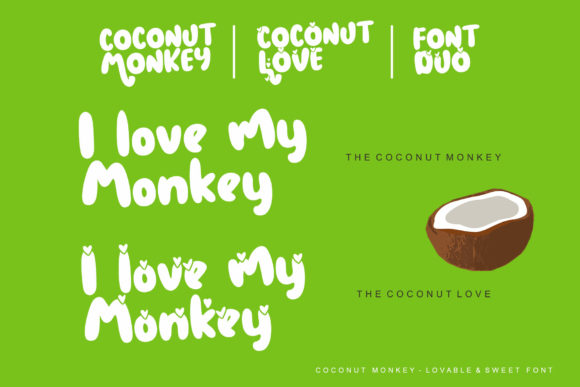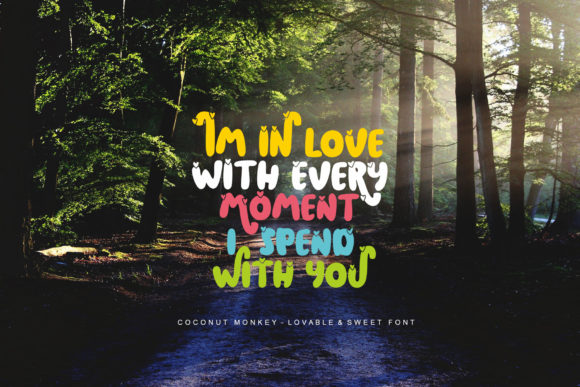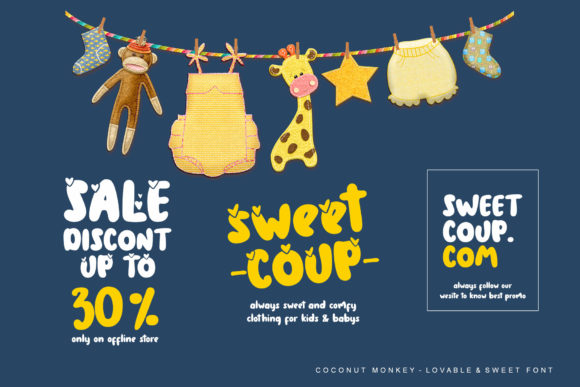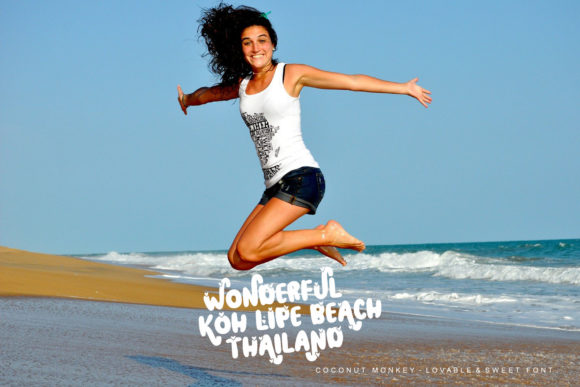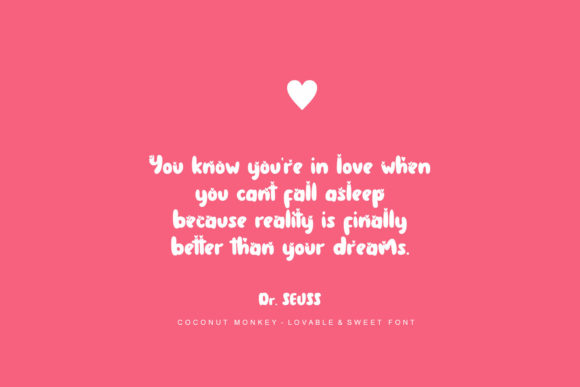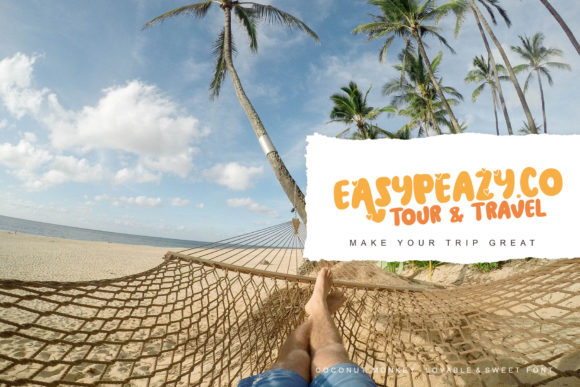
Coconut Monkey Font: The Sweet Display Font to Bring Your Creative Ideas to Life
Are you a designer, crafter, or DIY enthusiast looking for a unique and eye-catching font to add a touch of personality to your creative projects? Look no further than the Coconut Monkey Font! This sweet display font is sure to make your designs come alive with its colorful and bold style.
What is Coconut Monkey Font?
Coconut Monkey Font is a display font designed to add a playful and fun touch to your creative projects. Its unique and quirky style makes it perfect for a variety of designs, from posters and flyers to social media graphics and crafts.
Key Features of Coconut Monkey Font
- Colorful and Bold: Coconut Monkey Font is a vibrant and attention-grabbing font that adds a pop of color to your designs.
- Sweet and Playful: The font’s playful and whimsical style makes it perfect for designs that require a touch of fun and personality.
- Display Font: Coconut Monkey Font is designed specifically as a display font, making it ideal for headlines, titles, and short phrases.
How to Use Coconut Monkey Font
Coconut Monkey Font is versatile and can be used in a variety of creative projects, including:
- Posters and Flyers: Add a bold and eye-catching headline to your posters and flyers with Coconut Monkey Font.
- Social Media Graphics: Use Coconut Monkey Font to create engaging and shareable social media graphics.
- Crafts and DIY Projects: Add a personal touch to your crafts and DIY projects, such as handmade cards, gift tags, and decorations.
- Branding and Packaging: Use Coconut Monkey Font to add a playful and memorable touch to your brand’s packaging and marketing materials.
Benefits of Using Coconut Monkey Font
Using Coconut Monkey Font in your creative projects offers several benefits, including:
- Unique and Eye-Catching: Coconut Monkey Font is a one-of-a-kind font that will make your designs stand out from the crowd.
- Time-Saving: The font is easy to use and can save you time and effort in creating visually appealing designs.
- Versatile: Coconut Monkey Font can be used in a variety of creative projects, making it a valuable addition to your design toolkit.
Tips and Tricks for Using Coconut Monkey Font
Here are some tips and tricks to help you get the most out of Coconut Monkey Font:
- Experiment with Colors: Coconut Monkey Font comes in a range of colors, so don’t be afraid to experiment and find the perfect color to match your design.
- Mix and Match: Combine Coconut Monkey Font with other fonts and design elements to create a unique and visually appealing design.
- Play with Size: Coconut Monkey Font is designed to be bold and eye-catching, so don’t be afraid to experiment with different font sizes to add emphasis to your design.
| Font Name | Coconut Monkey Font |
| Author | Fourlines.design |
Coconut Monkey Font is a sweet display font that is sure to bring your creative ideas to life. With its colorful and bold style, this font is perfect for designers, crafters, and DIY enthusiasts looking to add a touch of personality to their designs. Whether you’re creating posters, social media graphics, or crafts, Coconut Monkey Font is a versatile and easy-to-use font that is sure to make your designs stand out from the crowd.